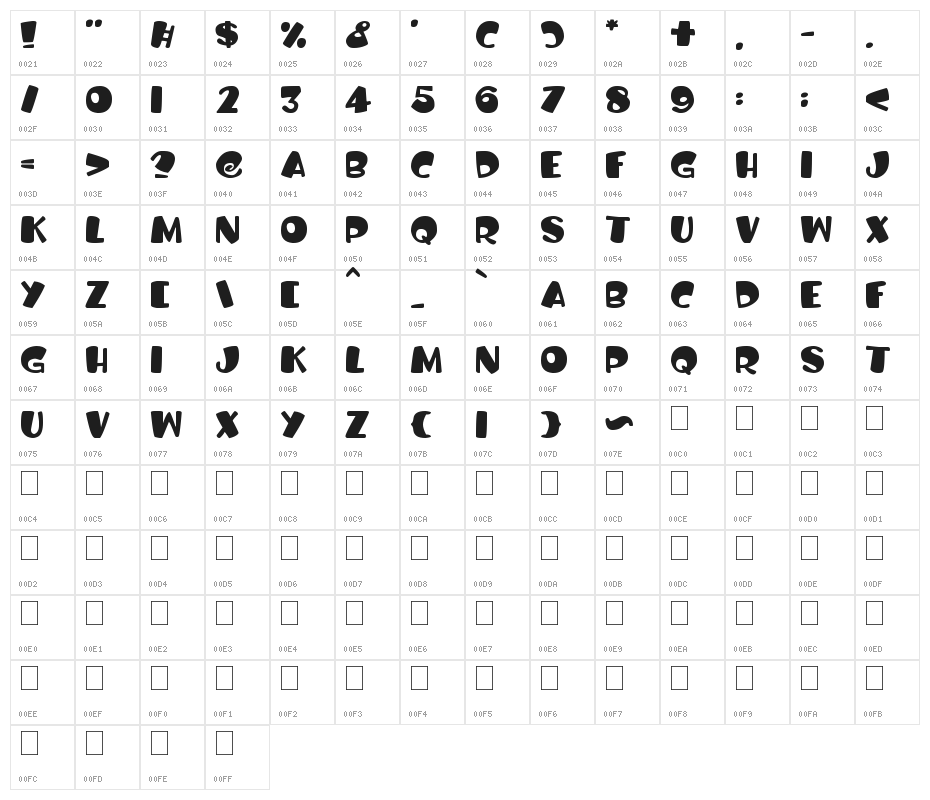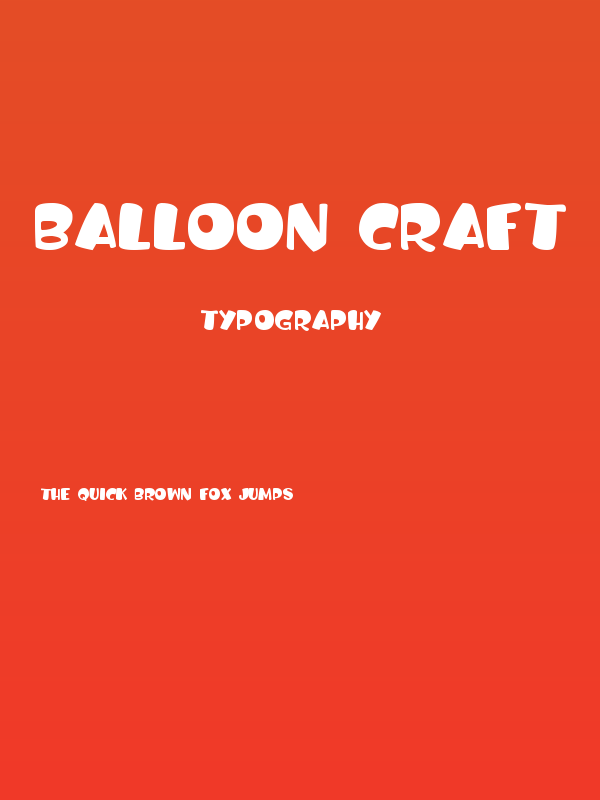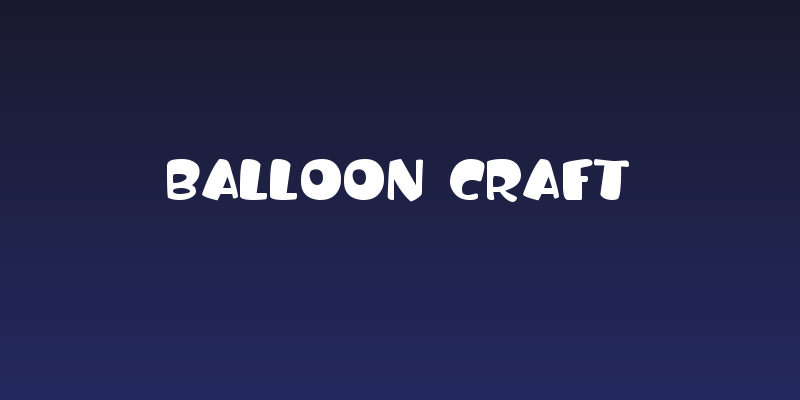
Balloon Craft Font
Balloon Craft Description
This playful and whimsical font features characters that resemble inflated balloons, giving it a fun and lighthearted appearance. The letters are bold and rounded, with a slightly irregular shape that adds to the casual and informal vibe. The font is highly legible, with each character distinct and easily recognizable. Its unique style makes it perfect for projects that require a touch of creativity and joy. The numbers and special characters maintain the same playful aesthetic, ensuring consistency across all text elements.
| Proposed Projects | Ideal for children's books, party invitations, playful branding, and creative posters. |